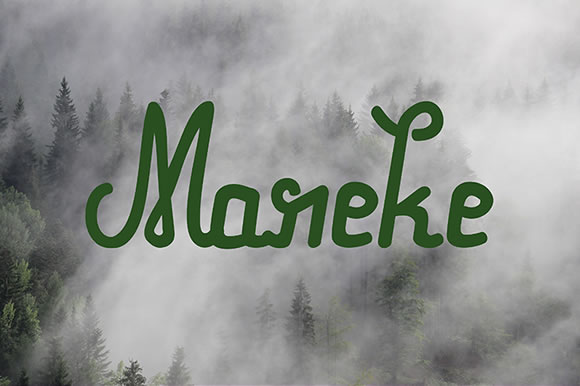
HomeScript FontsMareke Font Script Fonts Mareke Font FacebookXPinterestWhatsApp About Mareke Font Mareka is a retry font with a slight calligraphic twist. DOWNLOAD ON CREATIVE FABRICAThis font is sold and delivered by Creative Fabrica. Font Canyon may earn a commission if you buy through this link. People also explored Regyman Font Hantery Font Meiloly Font Christmas Rainbow Font Cheerleader Font Christmas Curls Font Rosaline Font Zirra Font Bravo Font 336 0 TagsMareke Font Previous articleMiodrag FontNext articleGenoise Font LEAVE A REPLY Cancel reply Comment: Please enter your comment! Name:* Please enter your name here Email:* You have entered an incorrect email address! Please enter your email address here Website: Save my name, email, and website in this browser for the next time I comment. Personal Use Free Roland Personal Use Free Read more about this font Triangular Curves Personal Use Free Read more about this font Dr.Marz Personal Use Free Read more about this font Loving You Personal Use Free Read more about this font BLOG To increase your work productivity, choose the most readable fonts. In today's fast-paced work environment, where digital communication and information consumption are integral to our daily routines, the choice of fonts can significantly impact... Top 10 Handwritten Fonts That Elevate Your Designs Fonts That Capture the Spirit of New York City Free Fonts Risk: Why Free Fonts Can Be Dangerous for Designers